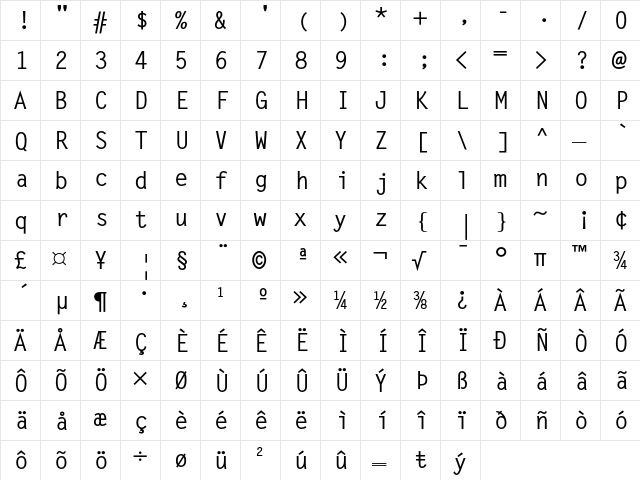
Letter Gothic Regular
Design Context for Letter Gothic Typeface
Letter Gothic takes a clean, functional approach — its unadorned letterforms prioritise legibility and work reliably across screen and print environments.
Font Pairing: Works well alongside a characterful serif or display font that can carry the expressive load while Letter Gothic handles the functional copy.
Pro Tip: Pair Letter Gothic with a display or serif font for headlines — its neutral character makes it an excellent supporting player in complex typographic systems.